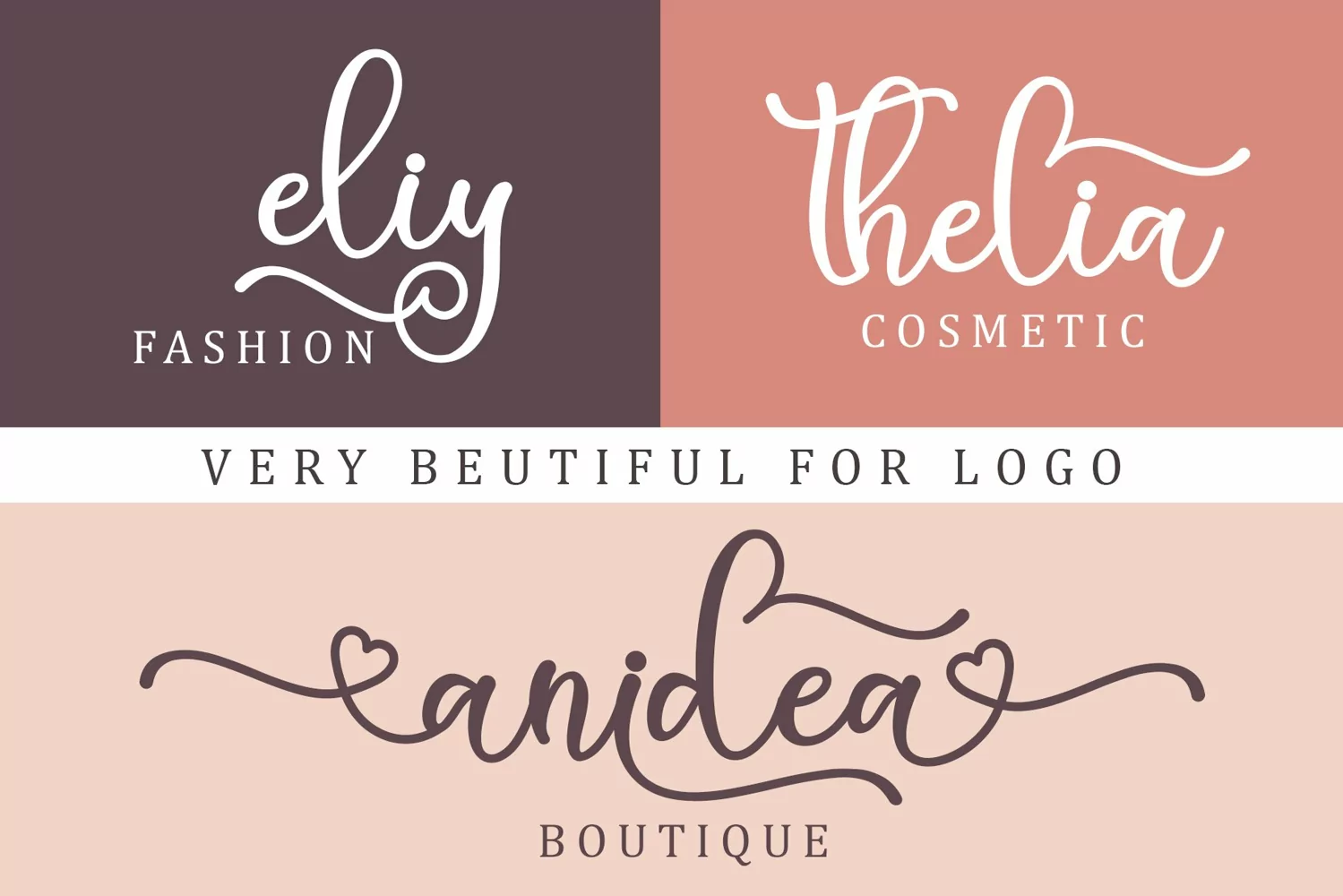
Aneliya is a romantic and sweet handwritten font. It looks astonishing on love letters, greeting cards, logos, business cards, and every other design which needs a personalized touch.